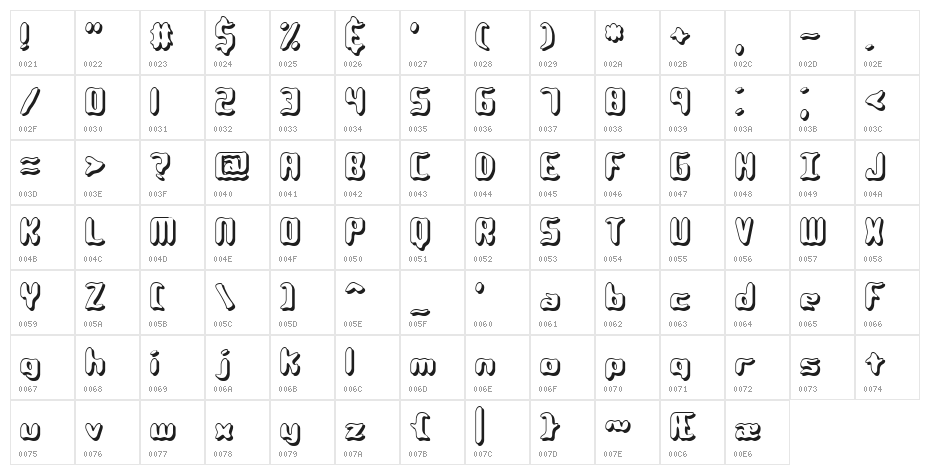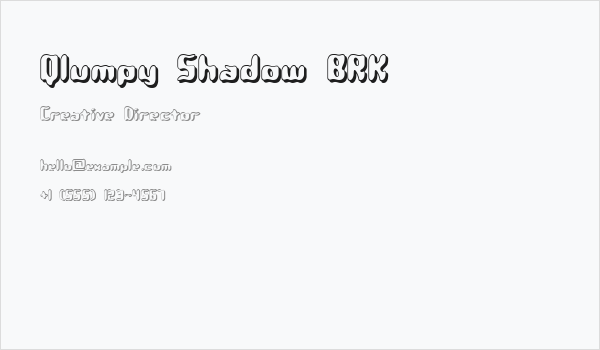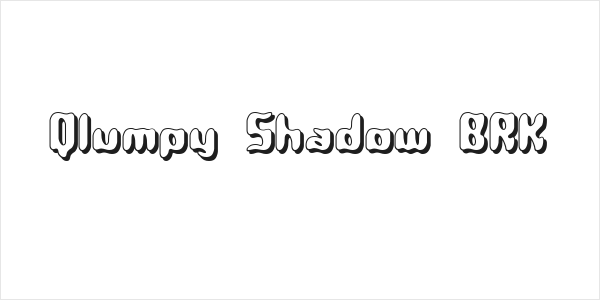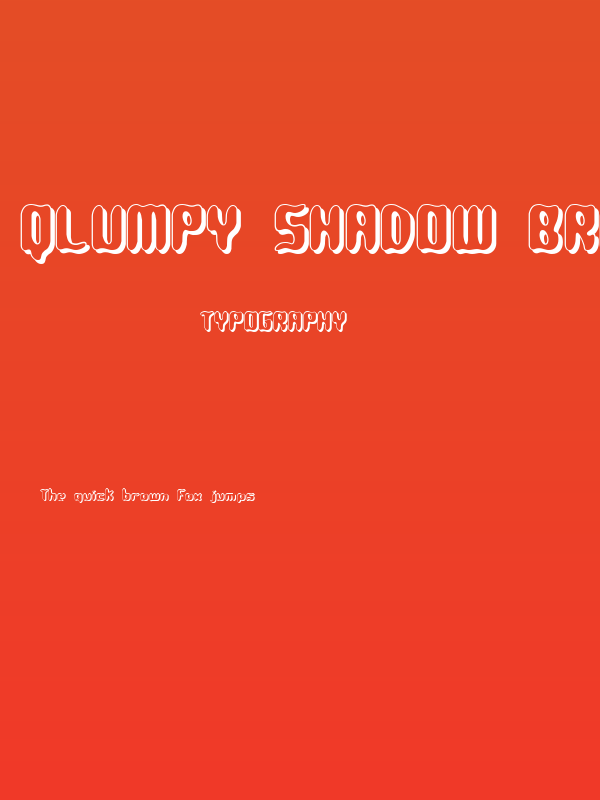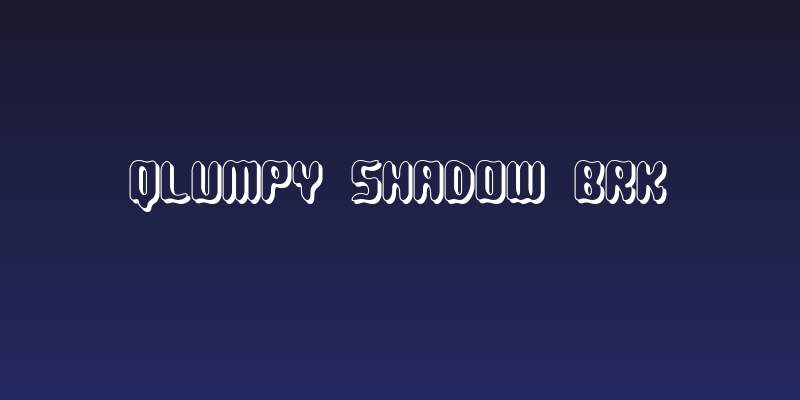
Qlumpy Shadow BRK Font
Qlumpy Shadow BRK Description
This playful and bold font features a unique shadow effect that gives it a three-dimensional appearance. The characters are rounded and have a bubbly, cartoonish style, making it stand out with its thick outlines and shadowing. The uppercase and lowercase letters maintain a consistent style, with a whimsical touch that adds personality. Numbers and special characters follow the same design, ensuring uniformity across all elements. The font's distinctiveness makes it ideal for creative and fun projects.
| Proposed Projects | Ideal for children's books, comic strips, playful branding, and eye-catching posters. |